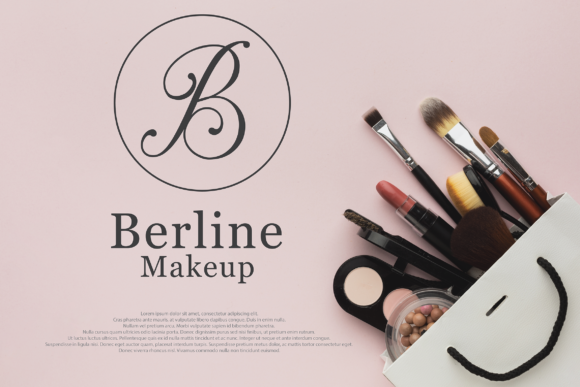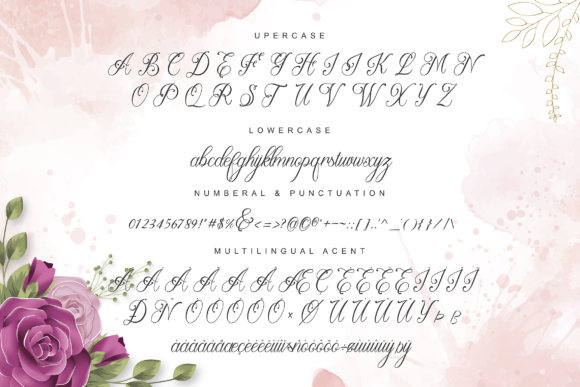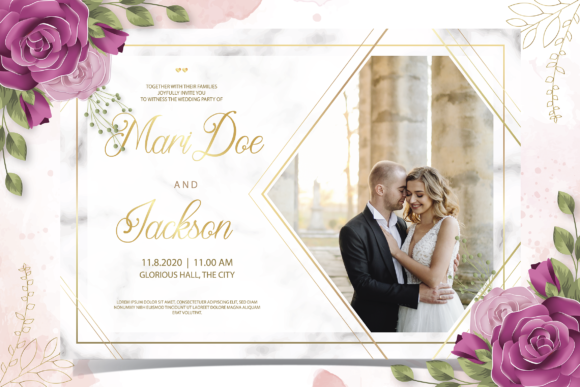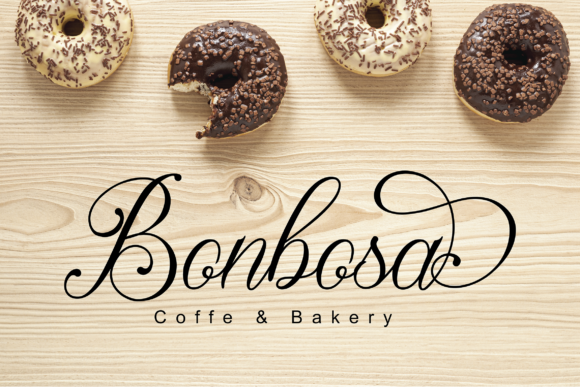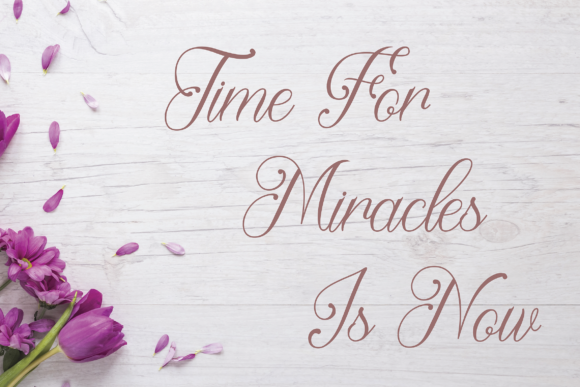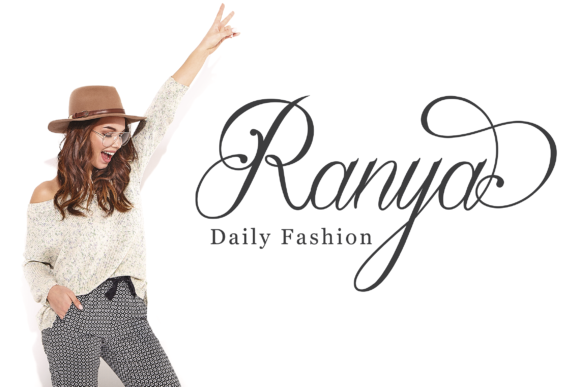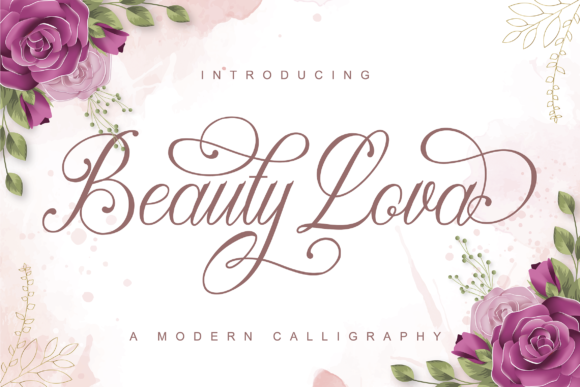
The Art of Crafting Beauty
Have you ever found yourself stuck in a creative rut, staring blankly at a blank canvas or a blank page, waiting for inspiration to strike? It’s a moment we’ve all been in, and it’s frustrating. But what if I told you that there’s a way to elevate your craft and bring your ideas to life with just the right touch?
Enter the Beauty Lova Font, a modern script font that’s designed to take your creations to the next level. With its abundance of swashes and decorative touches, you’ll be able to add a personal flair to your designs in seconds. And with its PUA encoding, you’ll have access to all the magic glyphs and swash at your fingertips.
Beauty Lova Font Key Features
- Unique Characteristics: Beauty Lova Font features a unique, hand-drawn design with a mix of modern and elegant elements, making it perfect for use in fashion, beauty, and lifestyle branding.
Designer Review: Beauty Lova Font
I recently had the chance to work with the Beauty Lova Font, and I must say it’s a beautiful addition to any design project. ✨ The font’s elegant and feminine script style is perfect for branding, packaging, and other design elements where a touch of sophistication is needed.
- The font’s legibility is excellent, making it easy to read even at smaller font sizes.
- The script style adds a unique and creative touch to designs.
- The font is highly customizable, allowing designers to adjust the size, color, and other properties to fit their project’s needs.
- The font may not be suitable for designs that require a bold or edgy look, as it’s more suited for elegant and sophisticated projects.
- The font may not be as versatile as some other fonts on the market, and may not work well in certain design contexts.
Overall, I’m impressed with the Beauty Lova Font’s design and functionality. While it may have some limitations, it’s a great choice for designers looking to add a touch of elegance to their projects. With a little creativity and experimentation, I think designers can achieve some truly stunning results with this font.
Use the Beauty Lova font in bold or italic styles to add emphasis and create visual interest.
Pair the Beauty Lova font with other complementary fonts to create a unique and eye-catching design.
The Beauty Lova font is ideal for use in:
Creative projects, such as graphic design, photography, and art.
Branding and marketing materials, such as logos, business cards, and brochures.
Editorial content, such as magazine covers and articles.